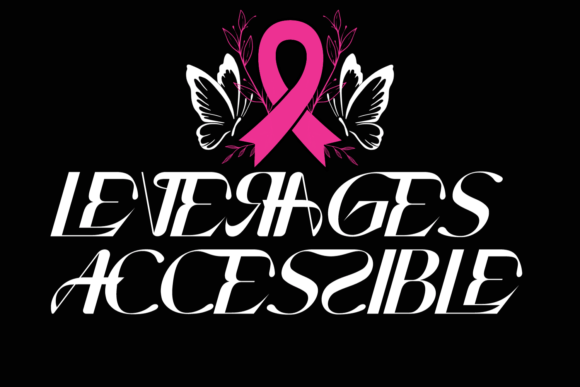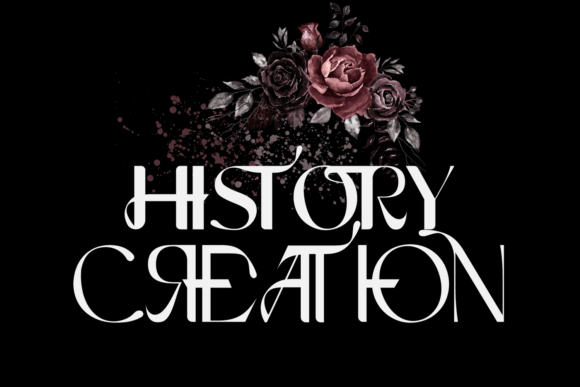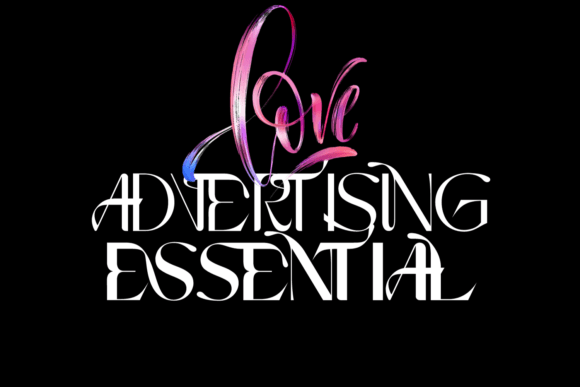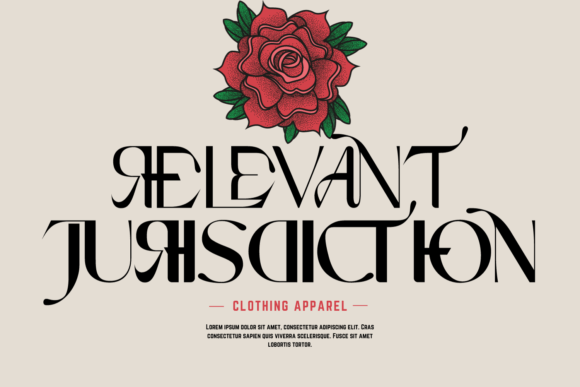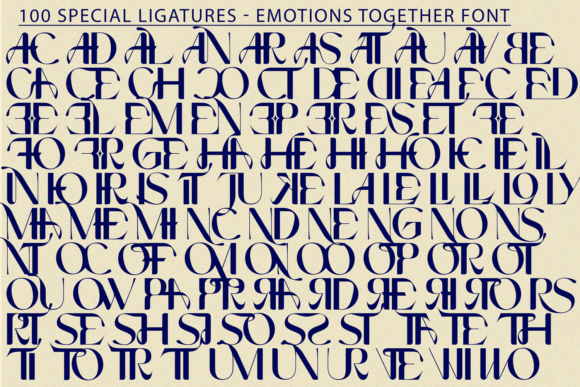
Introducing Emotions Together Font: Elevate Your Designs with Elegance and Playfulness
In the world of typography, fonts play a crucial role in conveying emotions and setting the tone for a brand or design. If you’re a designer or crafter looking for a font that exudes elegance, simplicity, and playfulness, look no further than Emotions Together Font. This stunning sans serif font is designed to make your designs stand out, whether you’re working on editorial projects, logo design, clothing branding, product packaging, or magazine headers.
A Perfect Blend of Simplicity and Playfulness
Emotions Together Font boasts simple letter shapes that are both clean and elegant. What sets it apart, however, is its playful ligatures that add a touch of whimsy to your designs. Despite its creative flair, the font maintains high legibility, making it suitable for use in both large and small sizes. This versatility is a key feature that makes Emotions Together a go-to choice for designers who need a font that can adapt to various design requirements.
Built with OpenType Features for Enhanced Creativity
One of the standout features of Emotions Together Font is its construction using OpenType features. This allows for a wide range of creative possibilities, including the use of ligatures, alternates, and other typographic elements that can elevate your designs. The font includes 100 ligatures, providing you with ample opportunities to add a unique touch to your text. Additionally, it features alternate characters, numbers, punctuation, and support for multiple languages, making it a highly versatile tool in your typographic arsenal.
Ideal for a Variety of Design Projects
Whether you’re working on a high-end editorial project, crafting a logo that needs to make a statement, or designing product packaging that stands out on shelves, Emotions Together Font is an excellent choice. Its elegant and clean lines make it perfect for clothing branding, where establishing a sophisticated brand image is crucial. For magazine headers, the font’s playful ligatures can add a creative flair that captures readers’ attention. Moreover, its compatibility with various background images makes it ideal for use as a stylish text overlay.
Key Features of Emotions Together Font
- Elegant Sans Serif Font: Simple and clean letter shapes that convey elegance.
- Playful Ligatures: 100 ligatures to add a playful touch to your designs.
- High Legibility: Maintains readability in both large and small sizes.
- Versatile: Suitable for editorial projects, logo design, clothing branding, product packaging, and magazine headers.
- OpenType Features: Includes alternate characters, numbers, punctuation, and supports multiple languages.
- Experiment with Ligatures: Take advantage of the 100 ligatures to add uniqueness to your text.
Emotions Together Font is a versatile and elegant sans serif font that can elevate your designs to new heights. With its simple letter shapes, playful ligatures, and OpenType features, it’s an excellent choice for designers and crafters looking for a font that combines sophistication with creativity. Whether you’re working on a small project or a large-scale design endeavor, Emotions Together Font is sure to make a lasting impression.